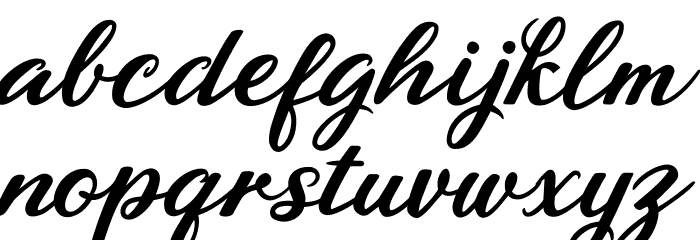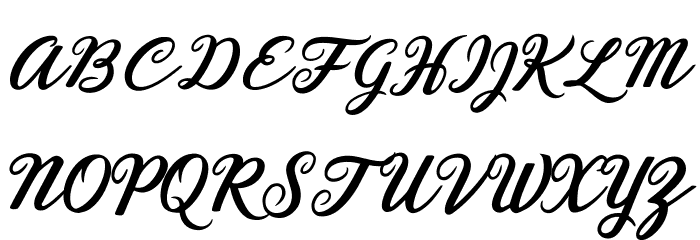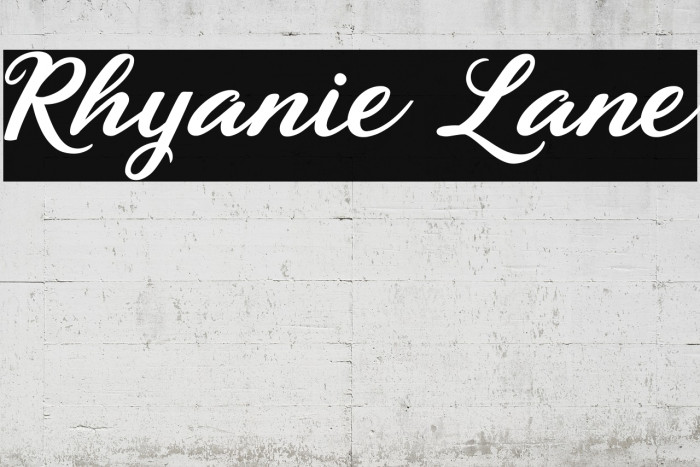
Rhyanie Lane Font
This font showcases a classic script style with elegant, flowing curves and a sense of sophistication. The letters are connected in a cursive manner, giving it a handwritten appearance. The uppercase letters are slightly larger and more ornate, while the lowercase letters maintain a consistent flow. The font exudes a sense of elegance and formality, making it suitable for upscale designs. The characters are well-balanced with a moderate contrast in stroke thickness, adding to its readability and aesthetic appeal.
An elegant script font with flowing, connected letters and a classic, sophisticated style.
- Font: Rhyanie Lane
- Proposed Projects: Ideal for wedding invitations, formal event programs, elegant branding, and upscale packaging designs.
- Category: Script
- Overall Style: Classic
- Use Case: Logos, Invitations, Branding